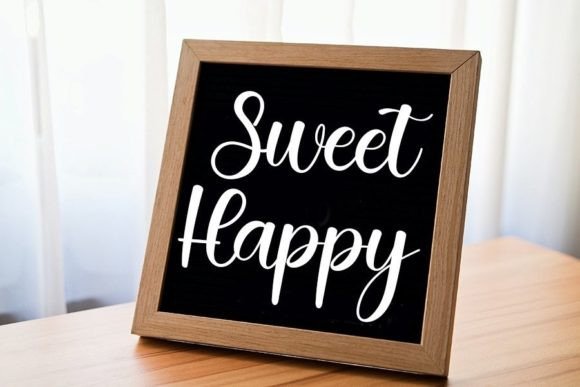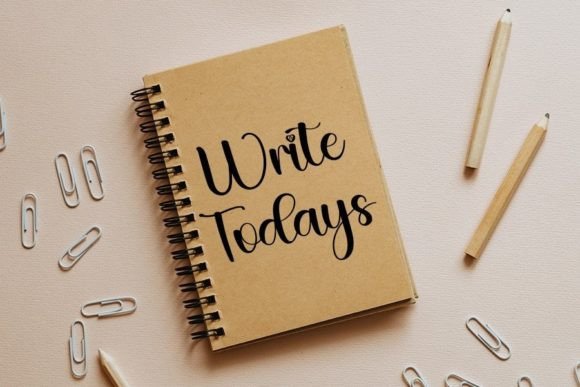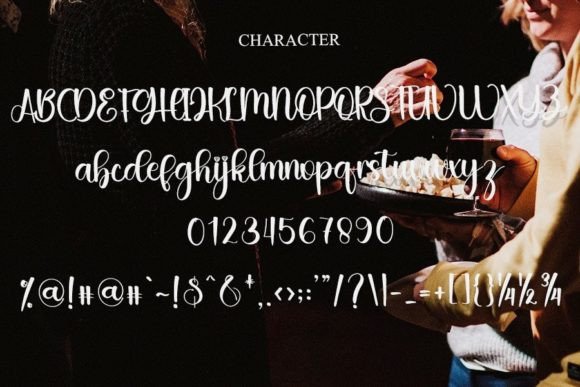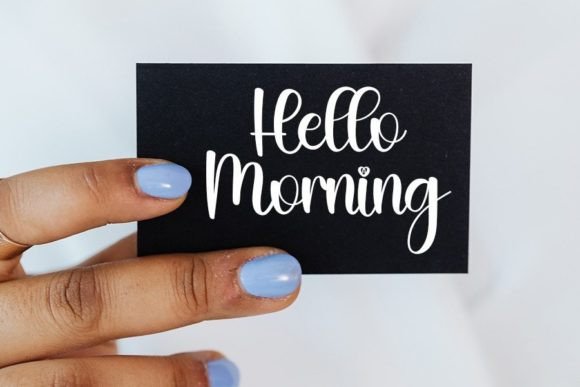
About Blessful Font
“Blessful” emerges as a stylish handwritten font, exuding a contemporary atmosphere and impeccable form inspired by timeless classic calligraphy. With a balanced and varied design, this font has been meticulously crafted to elevate the beauty of your projects, adding a touch of sophistication to every piece.
The charm of “Blessful” lies in its fusion of modern aesthetics and classic calligraphic inspiration. It brings a unique and timeless quality to your designs, making it a versatile choice for a wide range of creative projects. Whether you’re working on invitations, branding, or any other design endeavor, “Blessful” is designed to enhance and complement the visual appeal.
The font’s thoughtful design extends beyond its aesthetic appeal, ensuring a harmonious balance and variation in its letterforms. This attention to detail contributes to a seamless and visually pleasing reading experience. Each stroke and curve in “Blessful” tells a story of elegance and craftsmanship, reflecting its inspiration from classic calligraphy.
Additionally, the PUA encoding of “Blessful” enhances your creative freedom by granting easy access to a plethora of amazing glyphs and ligatures. This feature allows you to personalize and customize your designs effortlessly, making the font a versatile tool for creative expression.
Imagine the possibilities that unfold as you incorporate “Blessful” into your projects. Whether you’re aiming for a contemporary and stylish vibe or a timeless classic feel, this font adapts to your vision, enhancing the overall beauty of your creative endeavors. Let “Blessful” be the stylish companion that elevates your designs, providing a touch of sophistication and a contemporary edge.
With its impeccable form and accessibility through PUA encoding, “Blessful” invites you to explore the vast creative potential it offers, ensuring that each project is a testament to the beauty of thoughtful design and inspired craftsmanship.